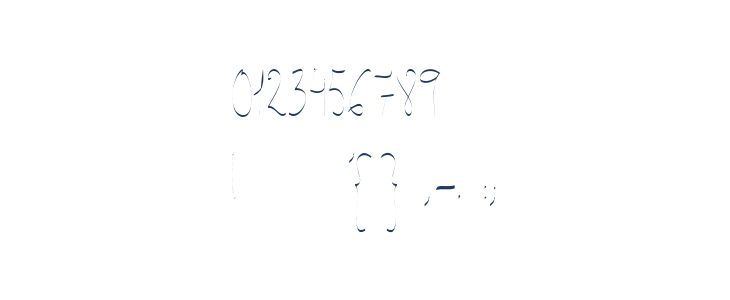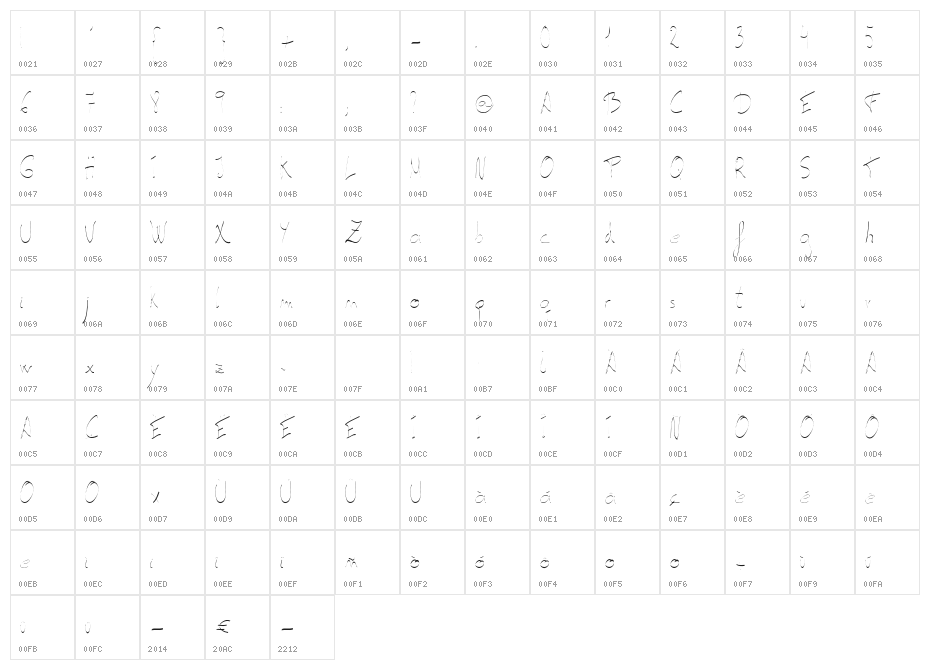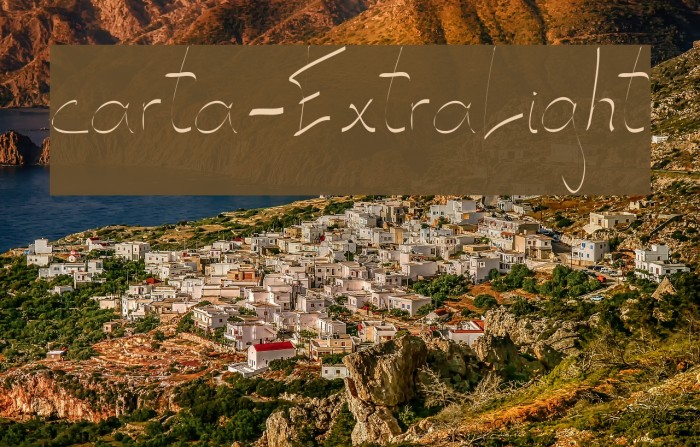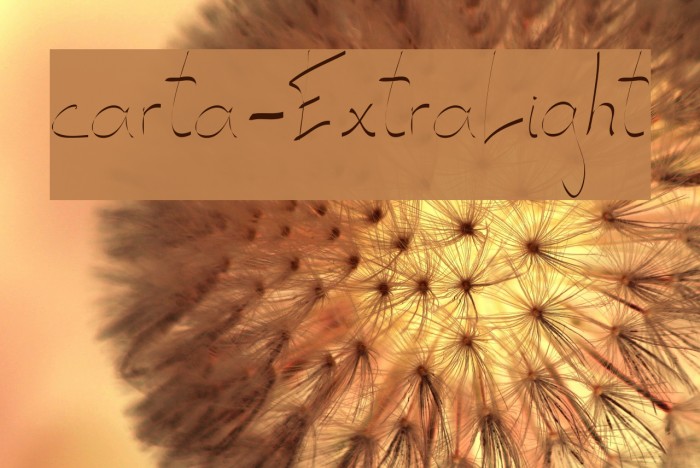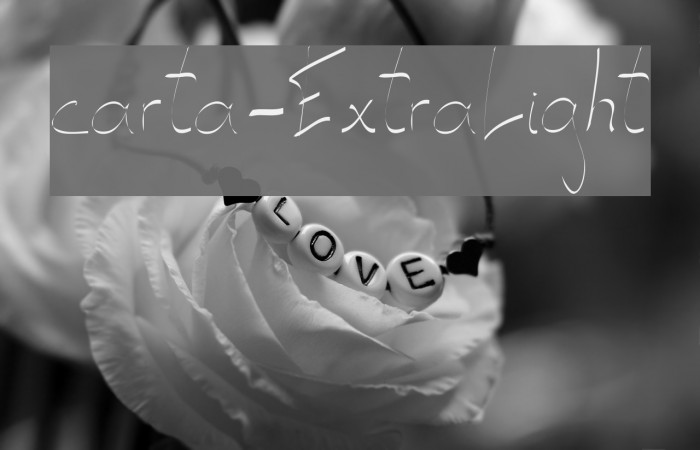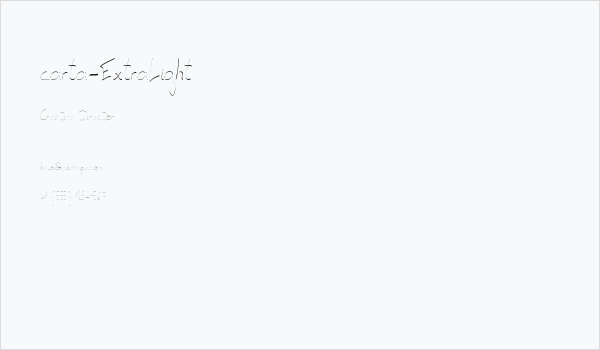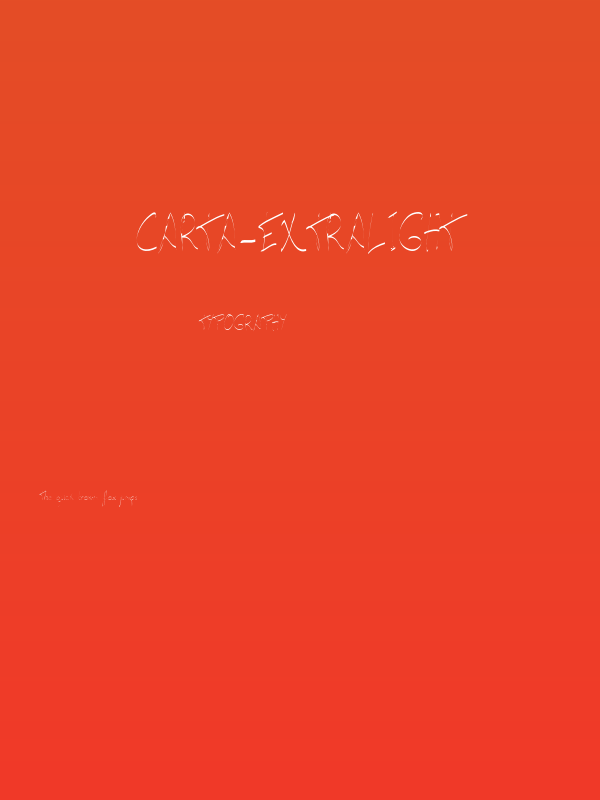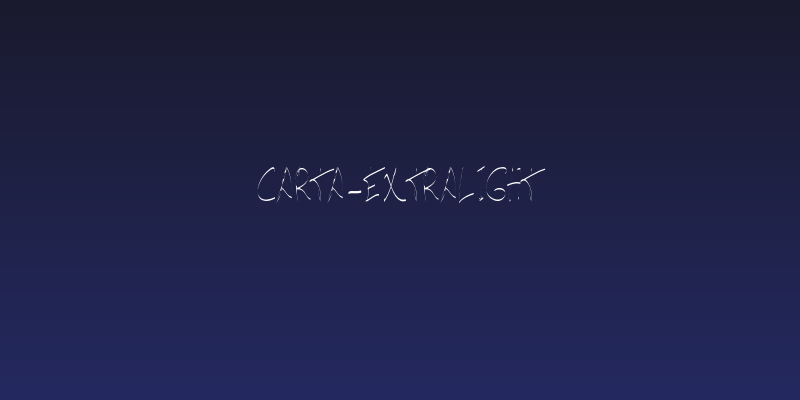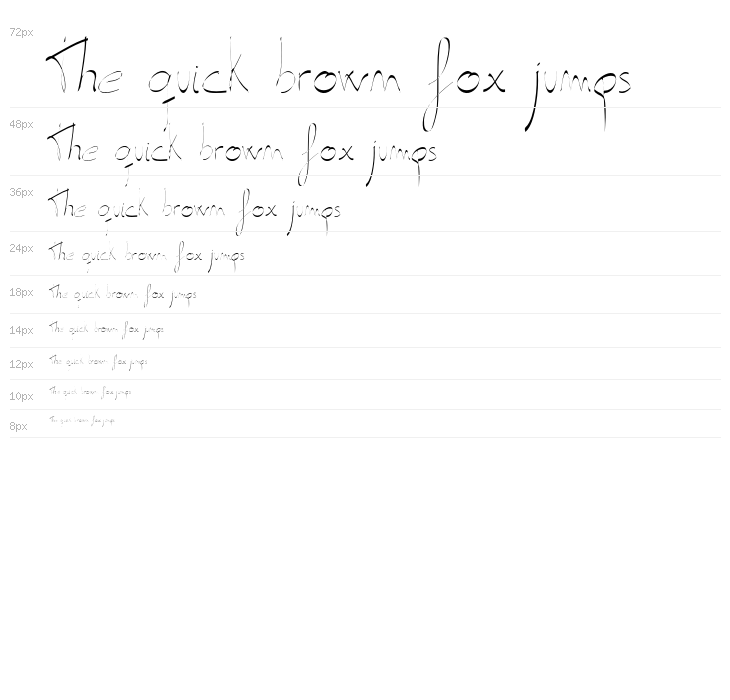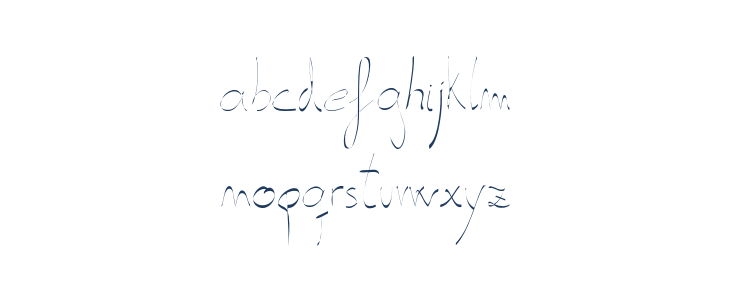
carta-ExtraLight Font
carta-ExtraLight Description
This font features an elegant and flowing script style, characterized by its delicate and thin strokes. The letters are connected in a cursive manner, giving it a handwritten appearance. The uppercase letters are slightly more structured, while the lowercase letters exhibit a more fluid and organic form. The numerals and special characters maintain the same graceful quality, ensuring consistency across the typeface. This font's light weight and airy feel make it suitable for designs that require a touch of sophistication and elegance.